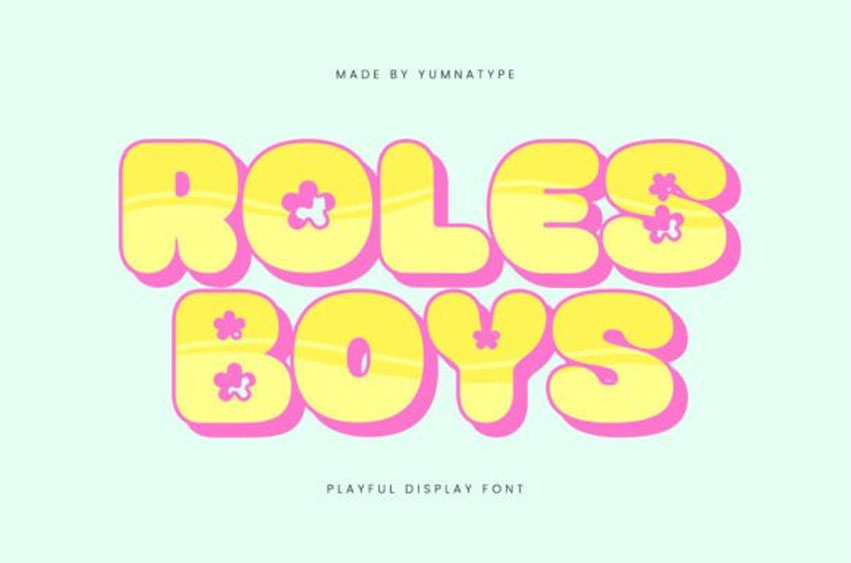
Roles Boys Font
Roles Boys Font is a lively display font crafted with uppercases, showcasing a playful style. The rounded shapes give it a soft and friendly appearance.
Roles Boys combines boldness with a sense of whimsy, ensuring your designs stand out with both impact and charm. Its thick, rounded characters are suitable to convey joy and creativity boldly and memorably.